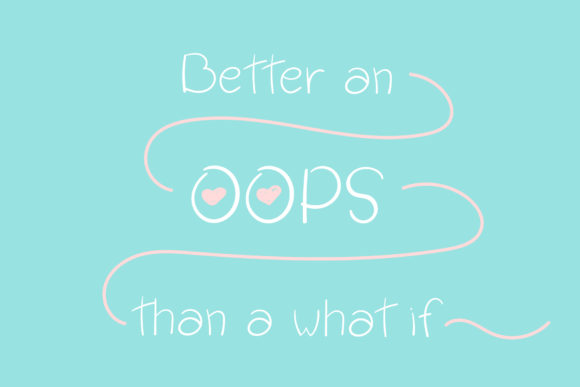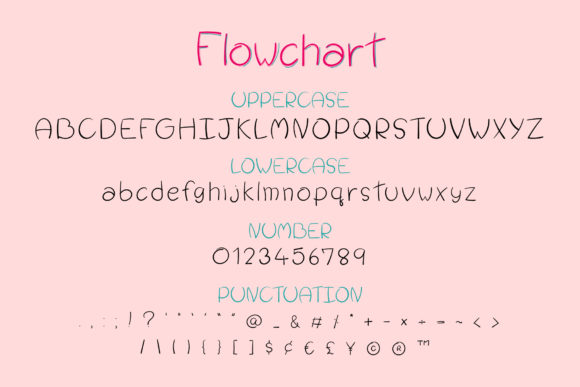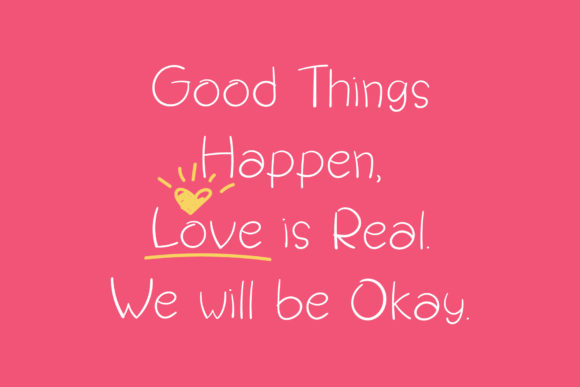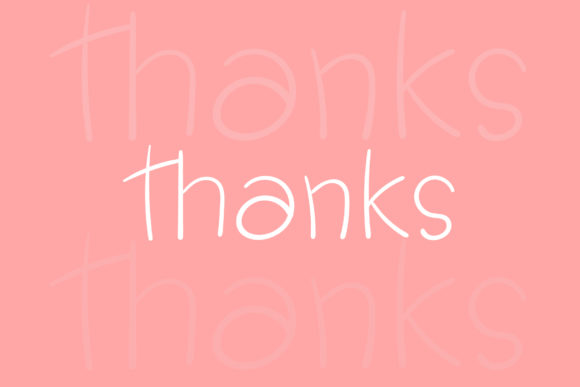
Flowchart Font
About Flowchart Font
Flowchart is a casual, fun handwritten font. Clean and a little bit quirky, this font is the perfect fit for all of your logos, branding, social media, and crafty DIY projects.